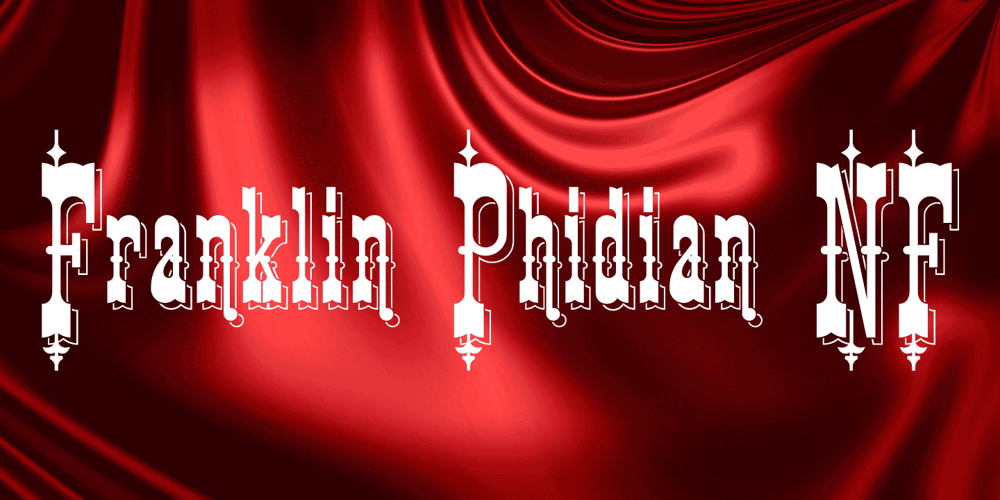
Franklin Phidian NF
Franklin Phidian NF Font Family was designed by Nick Curtis and published by Nick’s Fonts. Franklin Phidian NF contains 1 styles and family package options. Franklin Type Foundry’s 1897 specimen book offered the patter for this face. Numerals maching the lowercase are standard but, if you want numbers to match the uppercase letters, activate Stylistic Alternates in OpenType-savvy applications. Both versions support the Latin 1252, Central European 1250, Turkish 1254 and Baltic 1257 codepages.